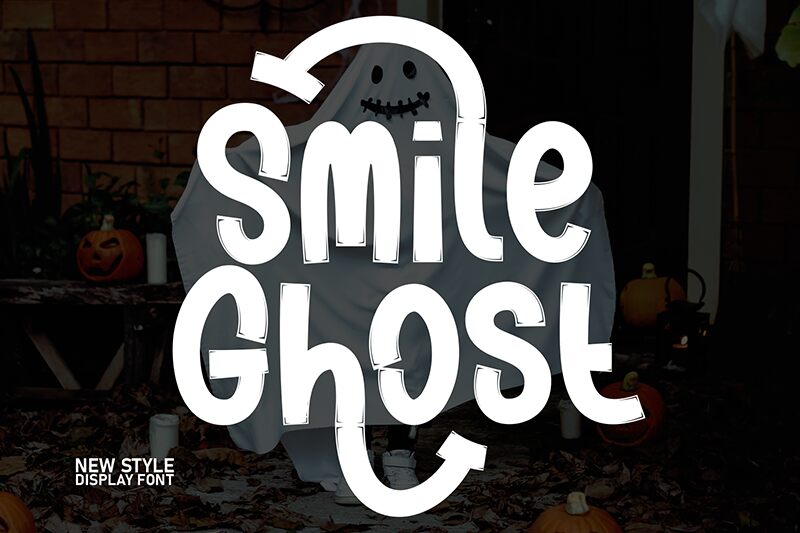
Smile Ghost
Smile Ghost font is a quirky and nostalgic display font designed by Scratchones. Its cartoon style presents a casual, distressed, and handcrafted appearance suitable for various art projects! With its condensed width, the typeface supports designs where space-saving is essential.
Use Smile Ghost in your logo design, website headers, social media graphics, books both in print and digital format, branding materials for businesses especially bakeries and children’s products. Posters and brochures will work equally well given you are guaranteed to grab attention quickly.